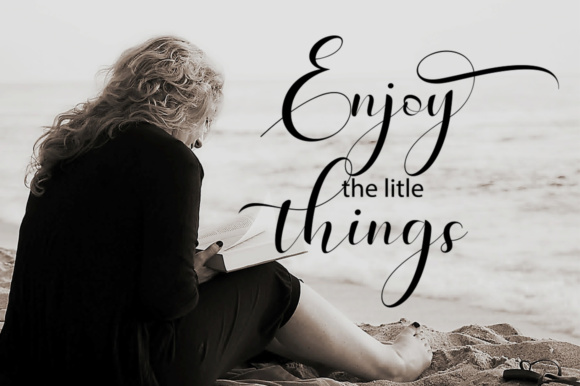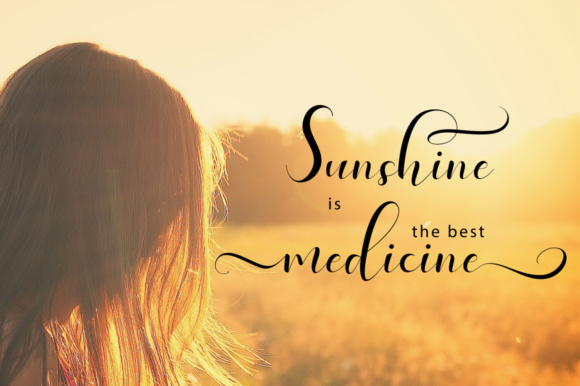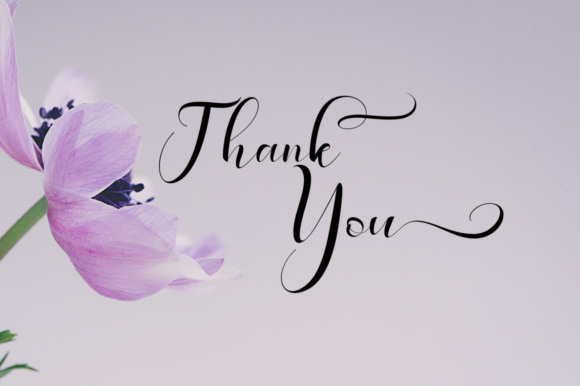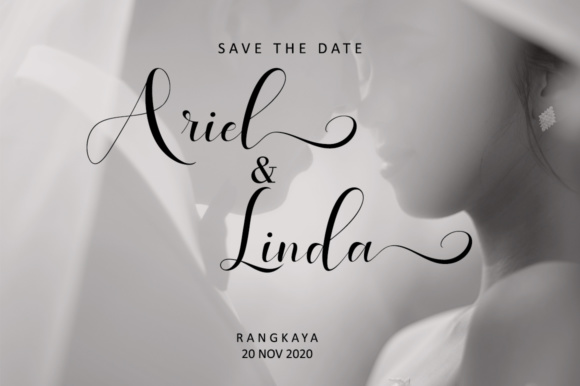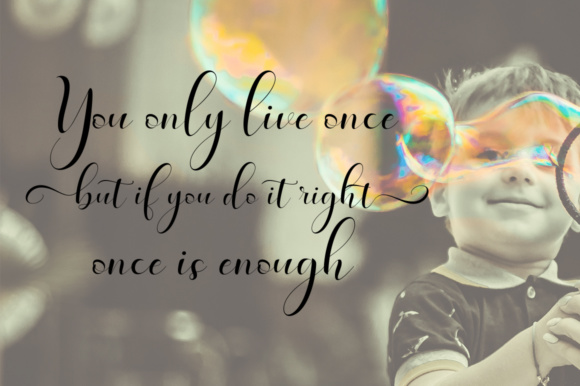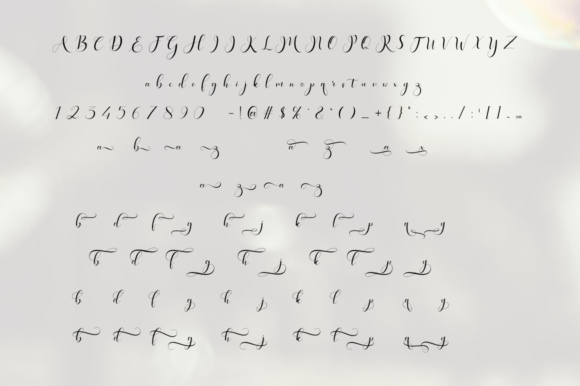
The Elegant Touch of Haleigh Script Font
Have you ever been brainstorming a new design project and suddenly, the perfect font pops into your head? That’s exactly what happened to me when I stumbled upon the Haleigh Script Font. There’s something about its elegant, modern calligraphy style that just screams “luxury” and “chic”.
The Haleigh Script Font is a versatile typeface designed to add a touch of sophistication to any design. From wedding invitations to branding materials, this font is perfect for anyone looking to elevate their visual aesthetic. Its fluid, cursive lines create a sense of movement and elegance, making it a valuable asset for designers looking to make a lasting impression.
Haleigh Script Font Key Features
- Unique Characteristics: Haleigh Script Font is a elegant, cursive script font with a modern twist, featuring connected strokes and a flowing feel
Haleigh Script Font Review
Haleigh Script Font ✨ is a beautiful, elegant font that adds a touch of sophistication to any design project. The flowing, handwritten feel is reminiscent of traditional calligraphy, making it perfect for wedding invitations, branding, and other high-end designs.
One of the standout features of Haleigh Script is its extensive language support ✨, making it accessible to designers working with clients from around the world. The font also includes over 1,000 glyphs ✨, ensuring that you have a wide range of options for customization and flexibility.
However, there are some limitations to consider ⚠️. The font may not be the best choice for projects requiring high-contrast text ⚠️, as the delicate script can become difficult to read in certain contexts. Additionally, the font may not be fully optimized for digital use ⚠️, resulting in potential display issues on certain screens.
The Haleigh Script font is ideal for:
• Wedding invitations and stationery
• Baby shower invitations and decor
• Food and beverage branding
• Handwritten-style quotes and sayings
• Use the Haleigh Script font sparingly to add a touch of elegance and sophistication to your design.
• Experiment with different font sizes and colors to create visual interest.
• Combine the Haleigh Script font with other fonts
Alternatives to Haleigh Script Font
Great Vibes Font is a beautiful, elegant script font perfect for wedding invitations, quotes, and other creative projects. It features a flowing, cursive design with subtle flair at the end of each letter. Great Vibes Font is ideal for designers looking for a sophisticated, high-end feel.
Compared to Haleigh Script Font, Great Vibes Font has a more refined, luxurious appearance. While Haleigh Script Font is more playful and versatile, Great Vibes Font is better suited for formal, high-end designs.
Alex Brush Font is a modern, elegant script font ideal for designers looking for a clean, sophisticated look. It features a flowing, cursive design with a subtle, hand-drawn feel. Alex Brush Font is perfect for creative projects, such as logos, branding, and packaging.
Compared to Haleigh Script Font, Alex Brush Font has a more modern, minimalist appearance. While Haleigh Script Font is more playful and versatile, Alex Brush Font is better suited for clean, sophisticated designs.